We’ve gathered 20 of the most beautiful typefaces released within the past month. Let’s take a look at this edition’s lovely batch!
Lian Types: Erotica
Beauty and elegance guaranteed.
Village: Odesta
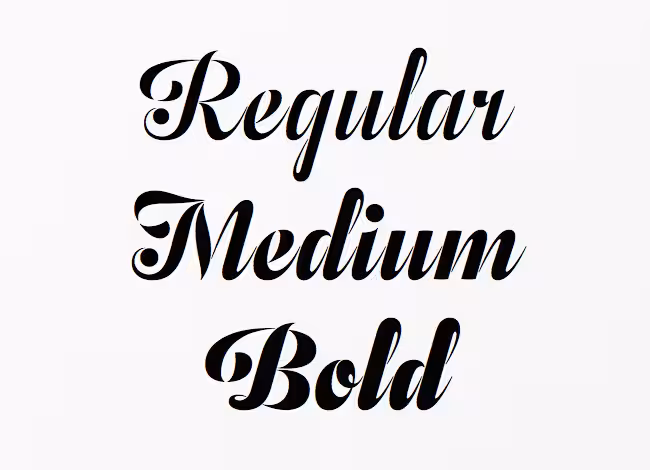
Seven feature-rich weights with built-in small caps, swash alternates, and contextual alternate initials and finials.
Thinkdust: Nanami Rounded
A carefully engineered take on the original Nanami family.
Commercial Type: Portrait
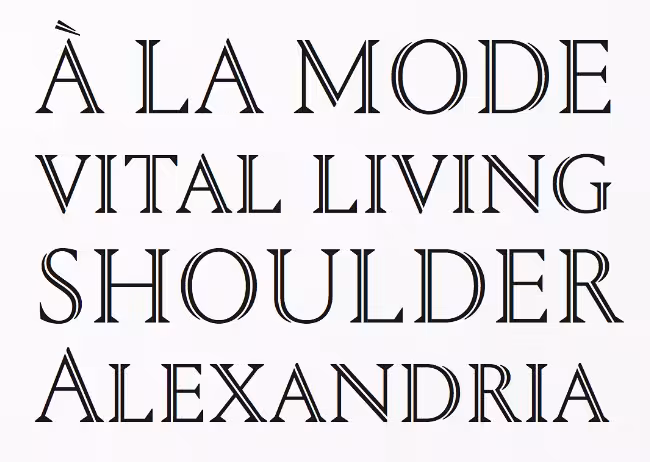
Aggressive in its simplicity but nuanced in its details.
FontFont: FF Mark
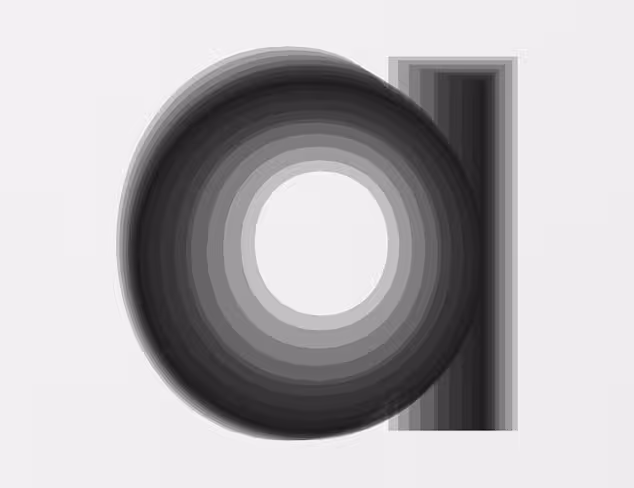
New meets old meets technic, FF Mark is not an average geometric sans. Strong, simple, bold – and created with utmost consideration and precision.
Type Supply: Balto
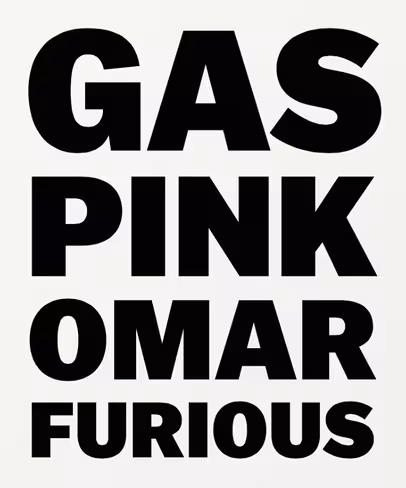
From casual to authoritative, classic to contemporary, passive to aggressive, Balto is ready for the job.
Samuelstype: Brooklyn Samuels
Based on geometrical shapes, it’s primarily intended for headline use but also offers excellent legibility in small sizes.
TipoType: Quiroga Serif
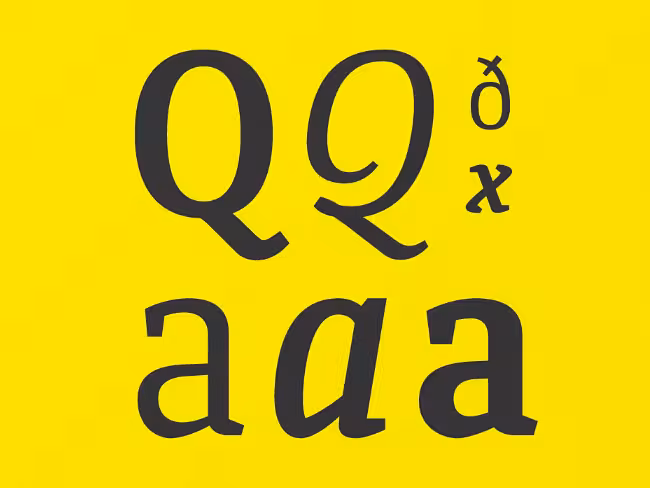
Designed for continuous text – legible at medium and small sizes, with great space-saving.
Village: Superior Title
A high contrast transitional typeface, a kind of missing link between Bodoni and Times.
The Signal Type Foundry: Center
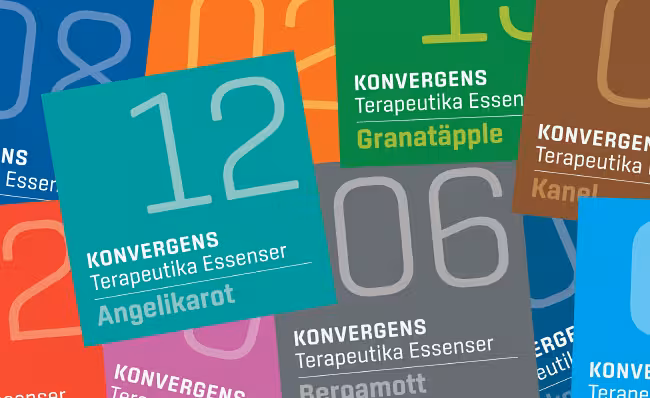
The future is squarish. Based on a rounded rectangle, its geometry has been subtly refined for smoother reading.
Typonine: Nocturno
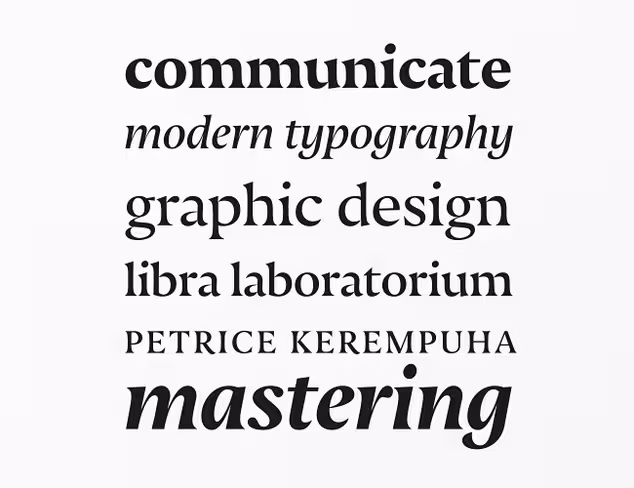
Broad-shouldered and heavy-armed: the rolling, dark silhouettes of its characters create a soothing yet forceful impression that serves to anchor words, no matter where they appear.
Sudtipos: Brownstone Slab
Influenced by the ironwork and carved decorations of New York City row houses.
Typotheque: Lava
Designed for magazine use, but far transcends its original application. It’s a no–nonsense workhorse typeface that can handle large quantities of text with ease.
Mostardesign: Metronic Slab Pro
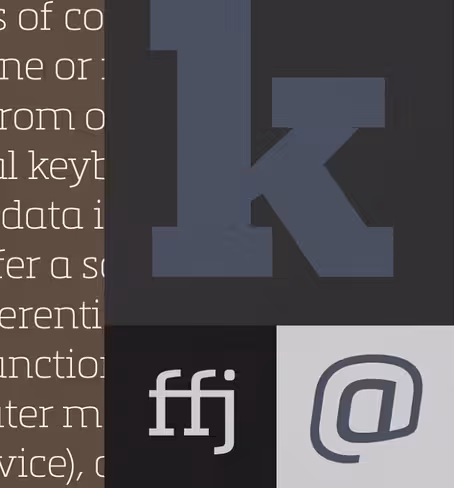
A slab-serif typeface with a technological and minimalist look.
FontFont: FF Kievit Slab
Not just Kievit Sans with slab serifs attached. It has been carefully adjusted and fine tuned in width and contrast to help make it an extremely legible typeface.
Nootype: Felice
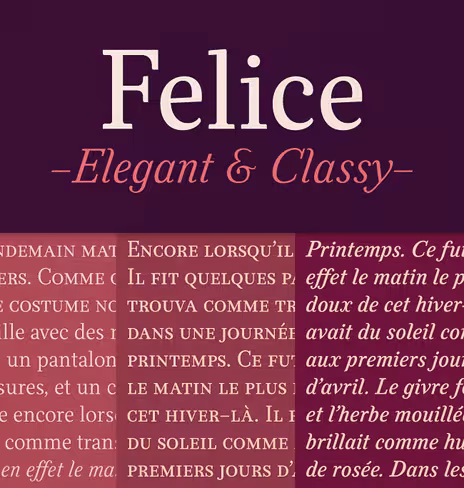
An elegant serif with a humanistic touch.
Hoftype: Equip
A new versatile geometric sans face in 16 styles, designed on a geometric base.
Fairgoods: Compunabula
Compunabula began as a rejected logo for a client. Happy accident!
Typefolio: Petala Pro
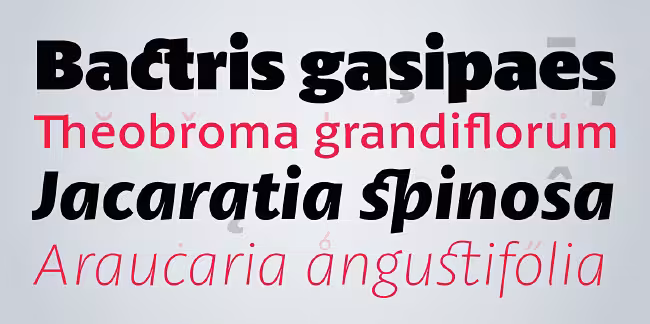
Combines readability with a gentle but strong personality. The smooth and balanced forms share space with expressive ink traps.
Talbot Type: Kilburn
Continues in the fine tradition of fonts such as Franklin Gothic, News Gothic and Trade Gothic offering a contemporary interpretation of the condensed sans-serif – functionality with personality.